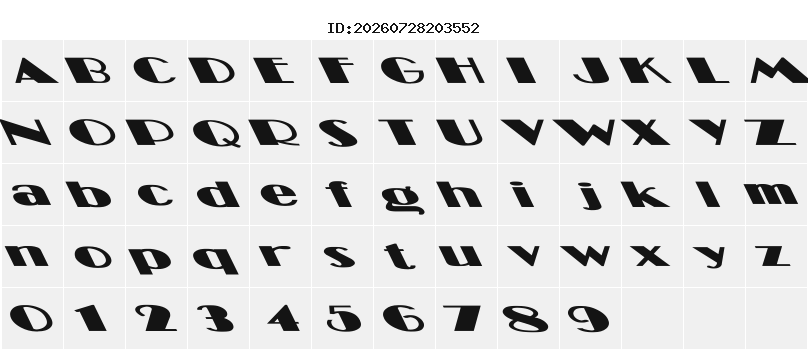
Miami Lefty Ex Bold Preview
• Font Name: Miami Lefty Ex Bold
• Full Font Name: Miami Lefty Ex Bold
• PostScript Name: MiamiLeftyEx-Bold
About Miami Lefty Ex Bold.ttf
Miami Lefty Ex Bold.ttf is a modern, elegant sans-serif font designed for ultimate readability and visual harmony. Perfect for branding, headlines, web design, and print materials.